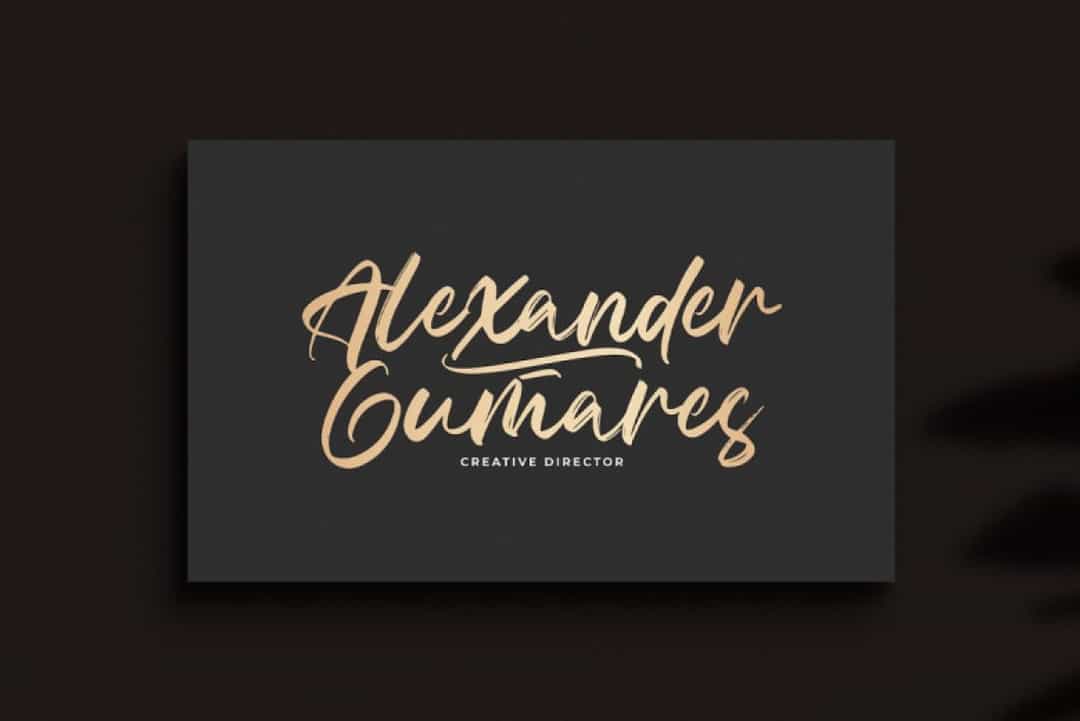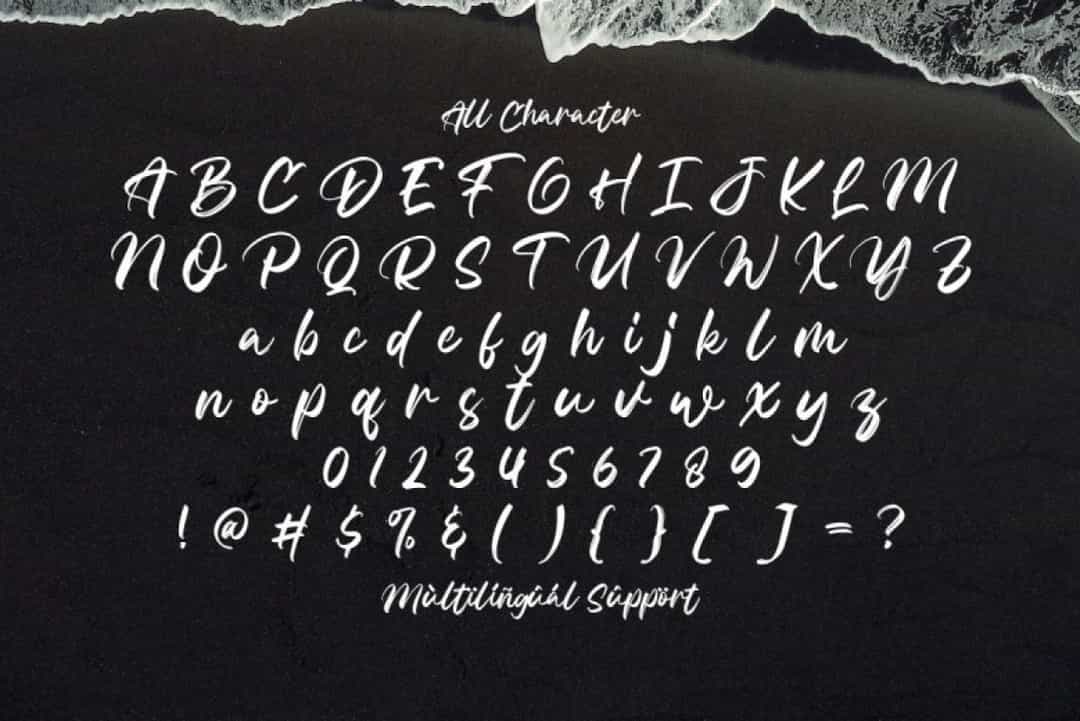
Celline Fram is an elegant textured hand-written script font. Take note from its distinct and stunning style to incorporate this font in your designs! Use it as the foundation of powerful logos or branding projects or even quotes; each letter boasts its own charming look to make your designs pop!